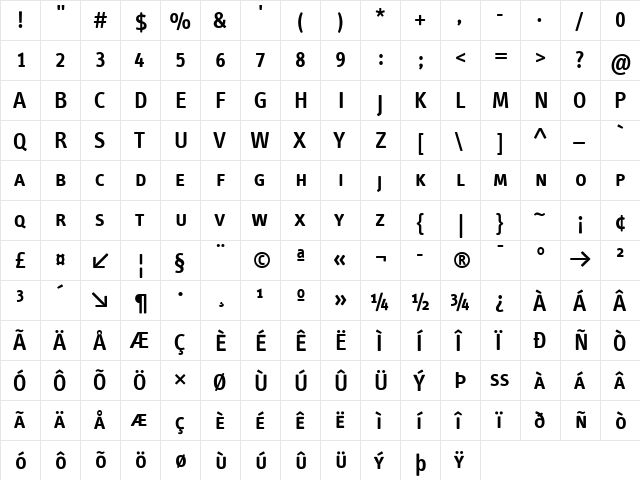
InfoText SemiBold Font Preview
InfoText SemiBold
InfoText SemiBold Font Details
| Style | SemiBold |
| Foundry | Erik Spiekermann, Ole Sch\ fer, . Published by FontShop International FontFont release |
Design Context for InfoText Typeface
InfoText is a composed and adaptable typeface that performs quietly and consistently across a wide range of design contexts. The heavy weight commands attention and anchors typographic hierarchies.